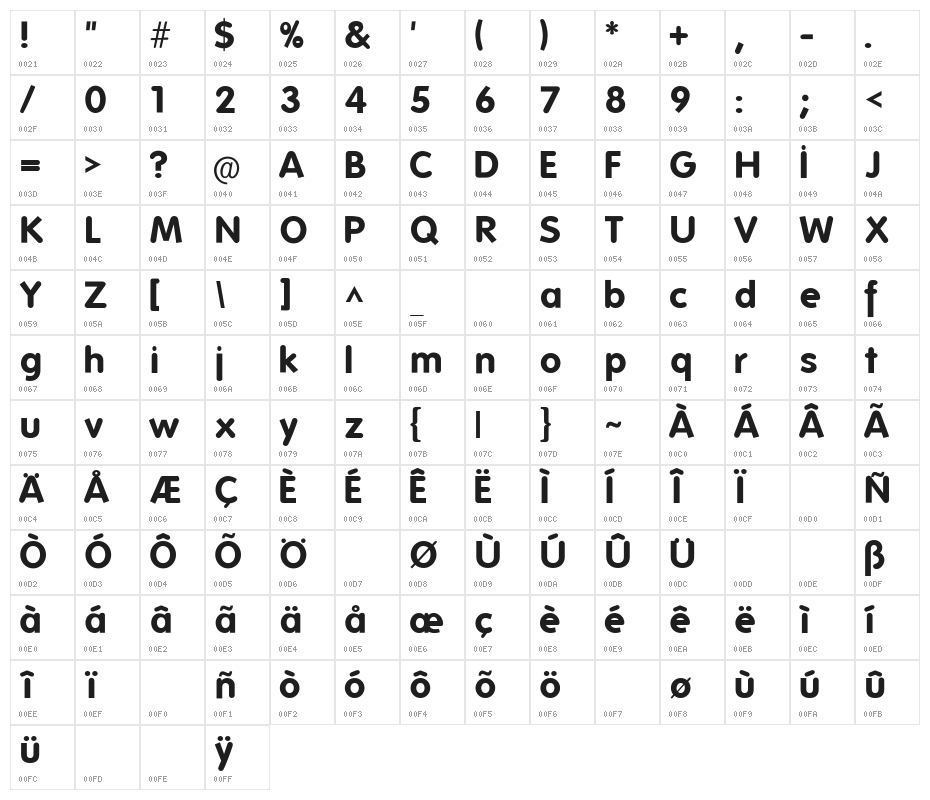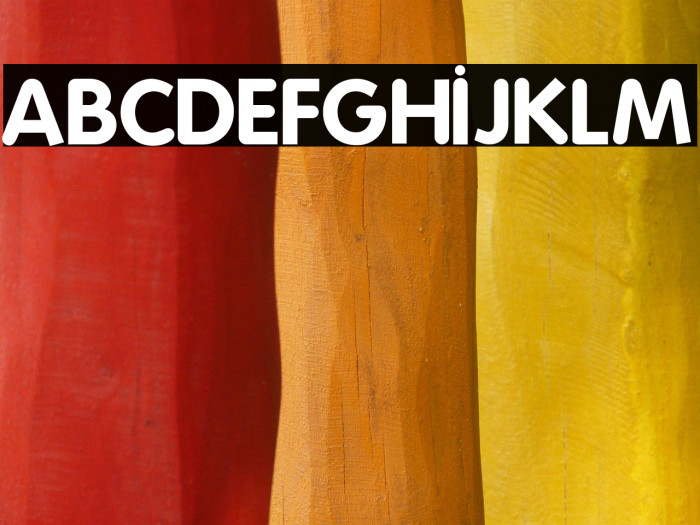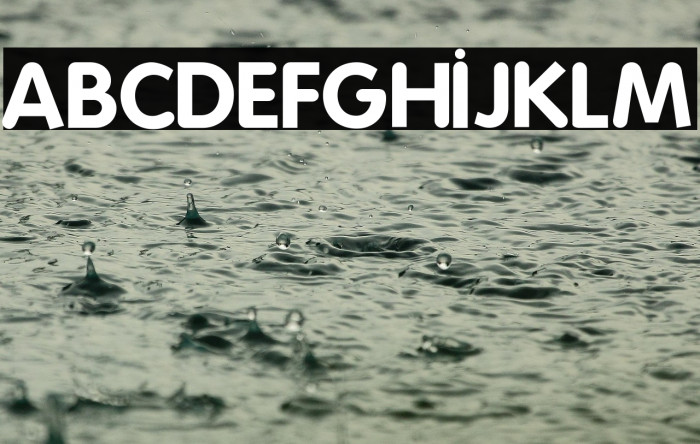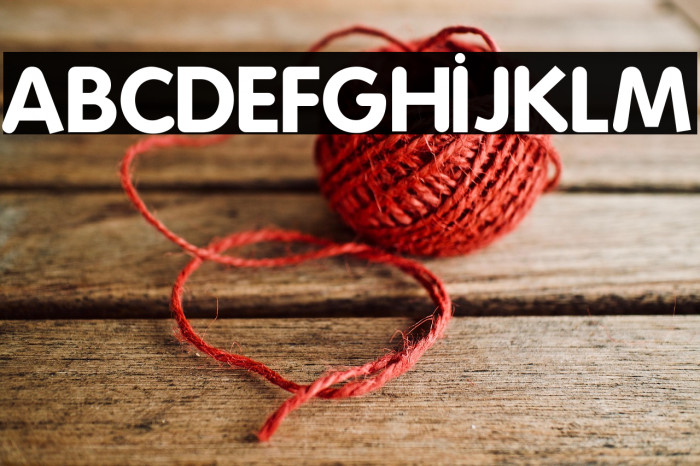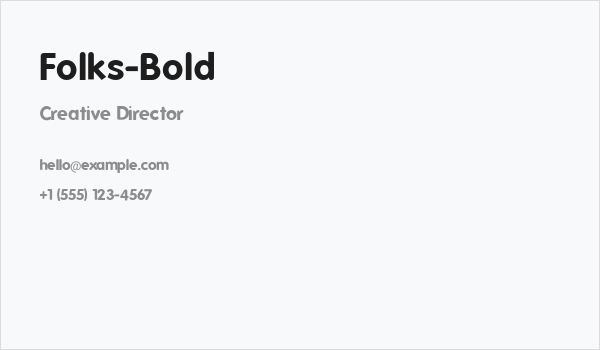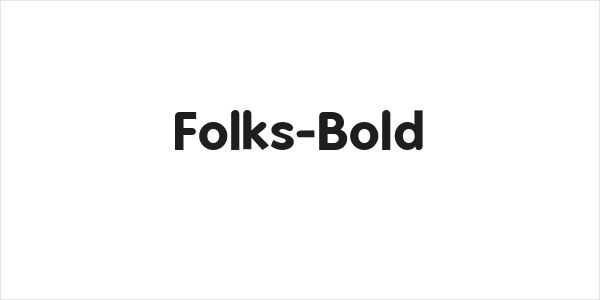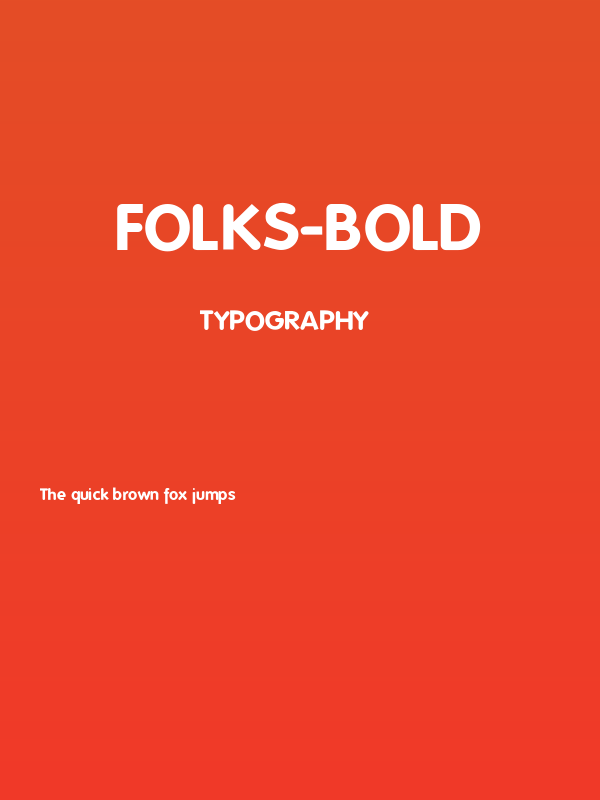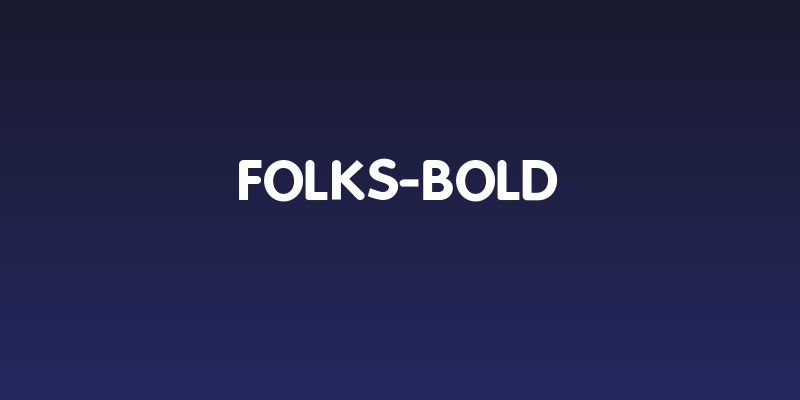
Folks-Bold Font
Folks-Bold Description
This font features a bold and rounded sans-serif style, characterized by its smooth curves and uniform stroke width. The letters are well-balanced with a modern aesthetic, making it highly legible and versatile. The uppercase and lowercase letters maintain a consistent design, with rounded edges that give a friendly and approachable feel. The numerals are clear and distinct, matching the overall boldness of the alphabet. Special characters are included, maintaining the same rounded and bold characteristics, ensuring consistency across all glyphs.
| Proposed Projects | Ideal for branding, advertising, headlines, and digital content where a modern and approachable look is desired. |